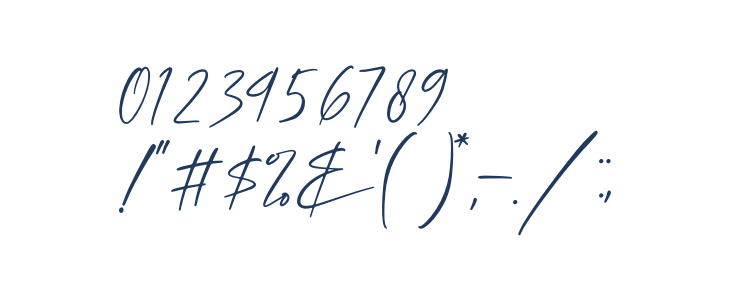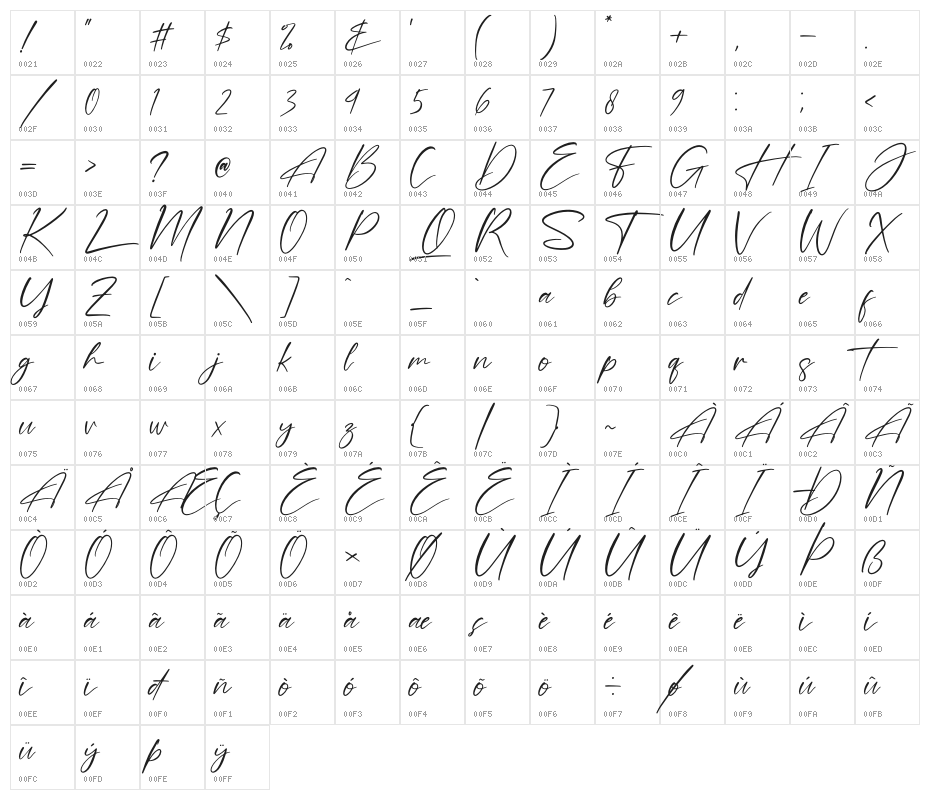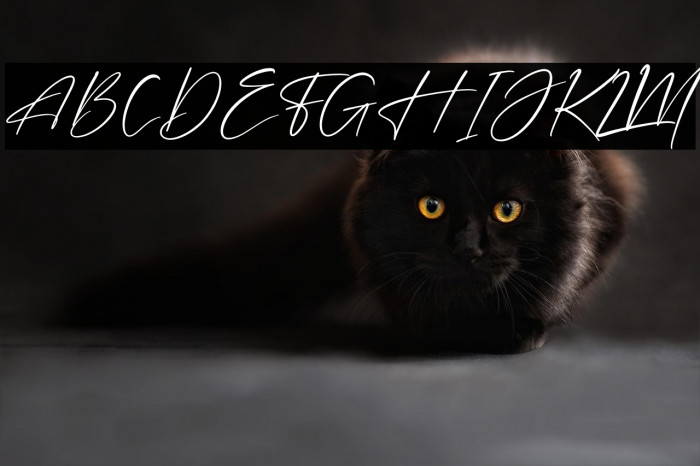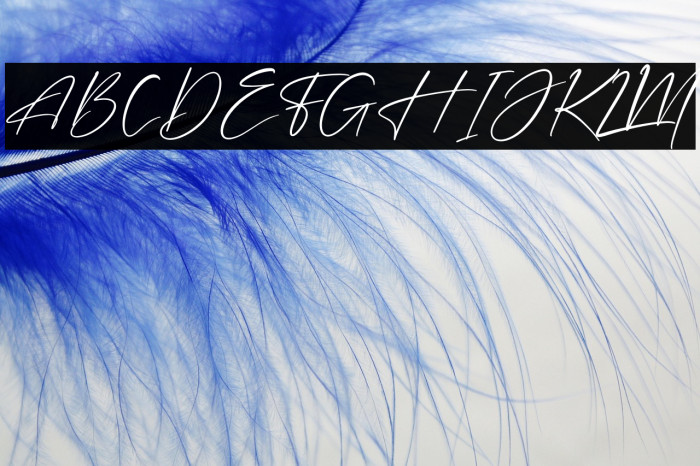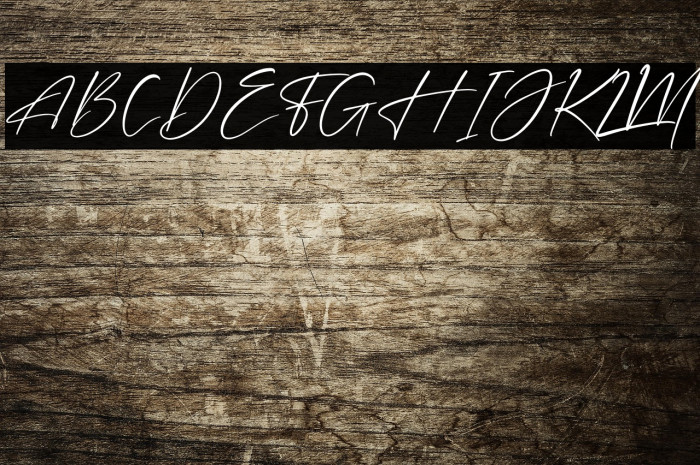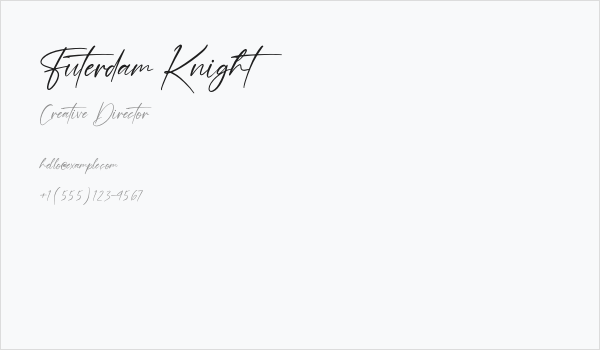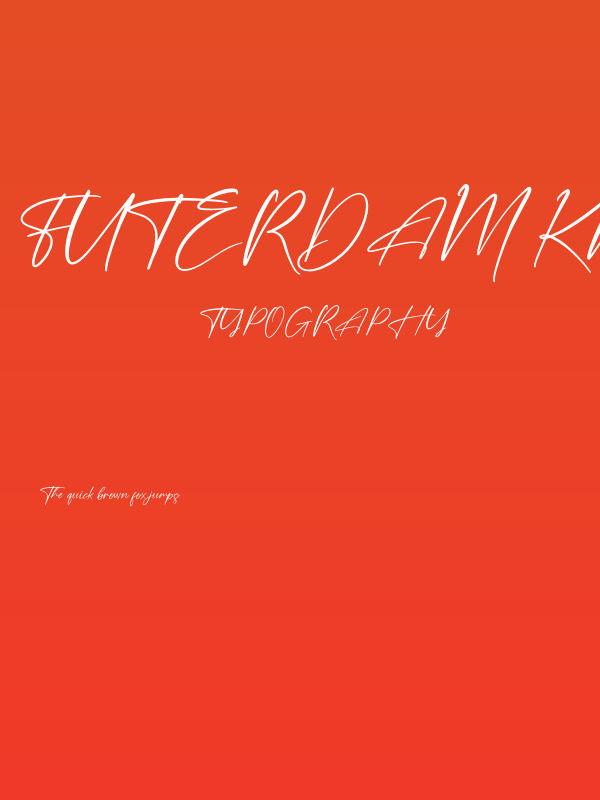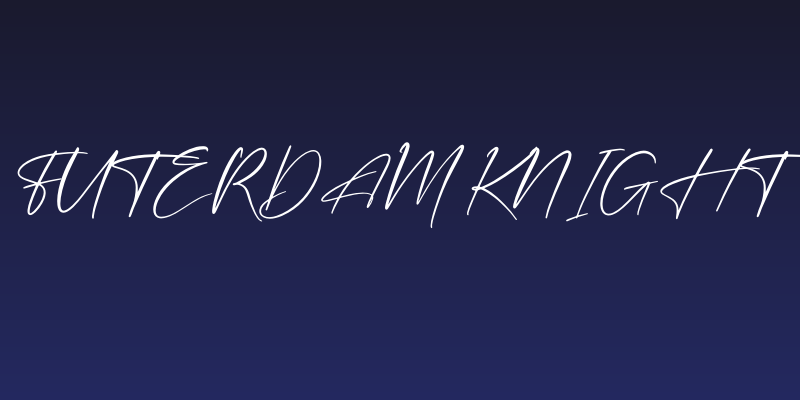
Futerdam Knight Font
Futerdam Knight Description
This font features a dynamic and expressive handwritten style, characterized by its fluid and cursive letterforms. The uppercase letters are bold and sweeping, with a slight slant that adds to the overall movement and energy of the typeface. The lowercase letters maintain a consistent flow, with some letters extending below the baseline, enhancing its handwritten appeal. The numerals are clear and legible, matching the style of the alphabet with a touch of flair. Special characters are integrated seamlessly, maintaining the font's cohesive look. This font exudes a personal and artistic touch, making it ideal for creative projects.